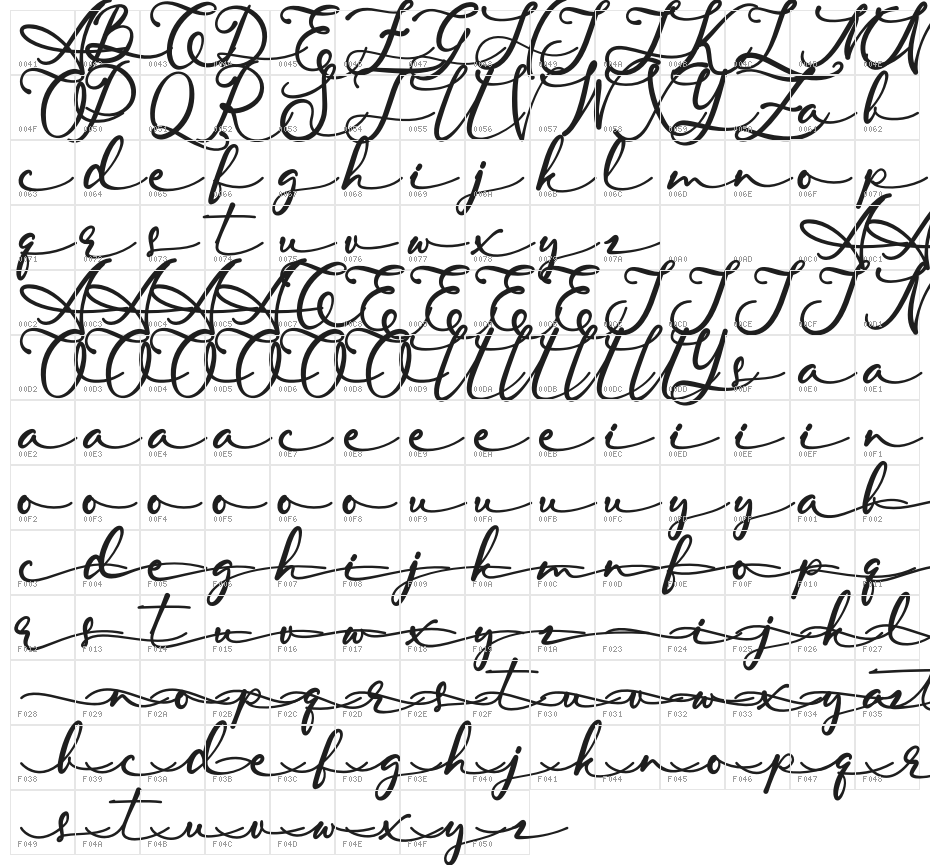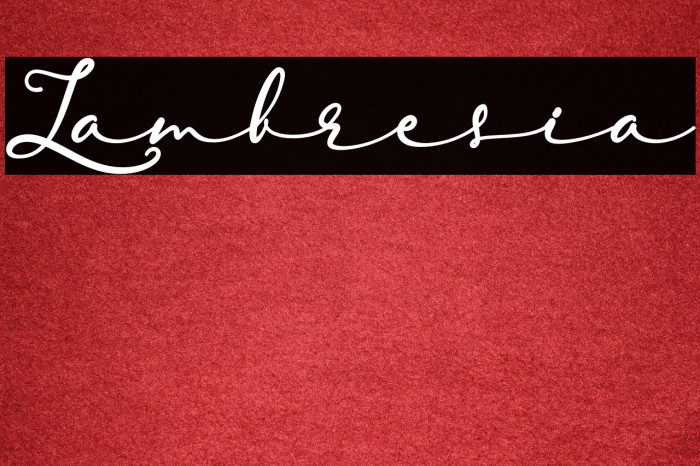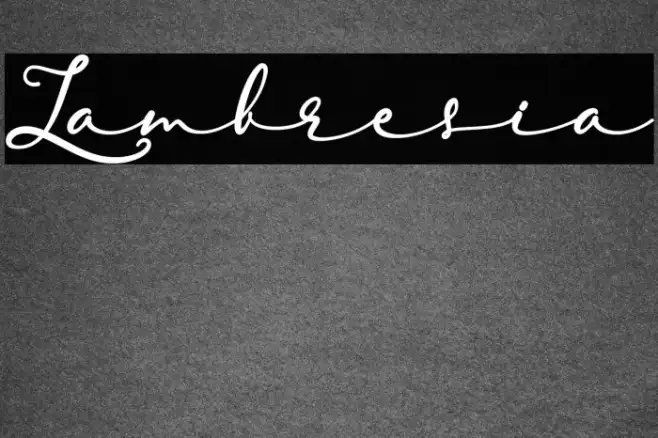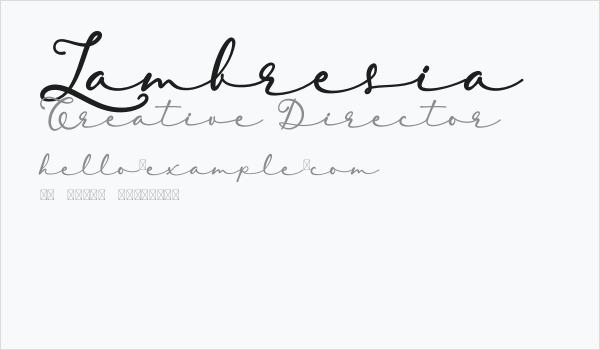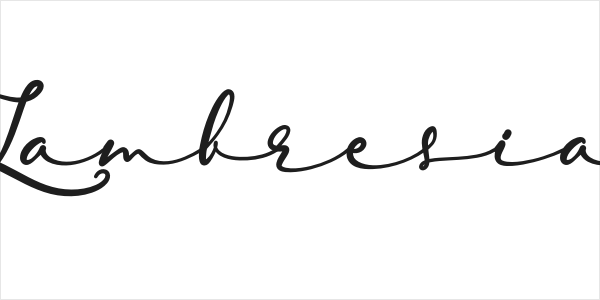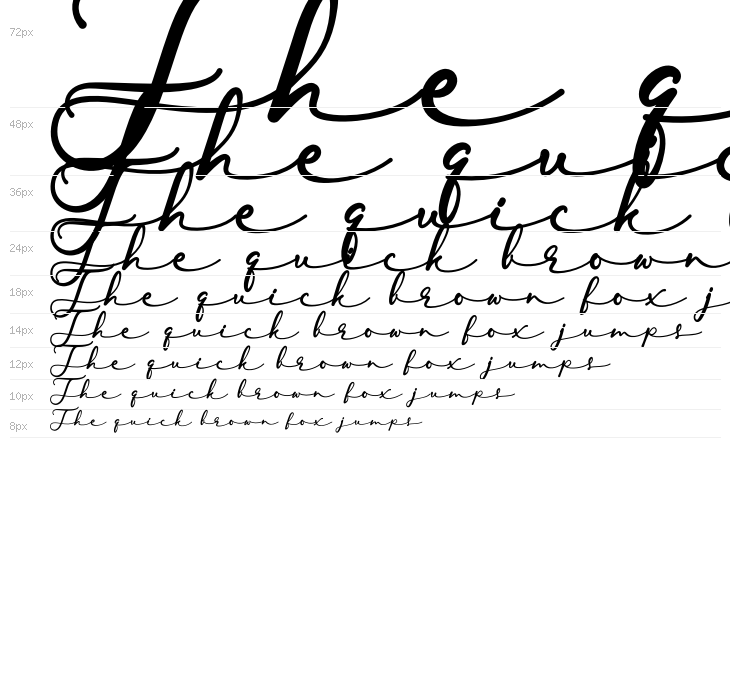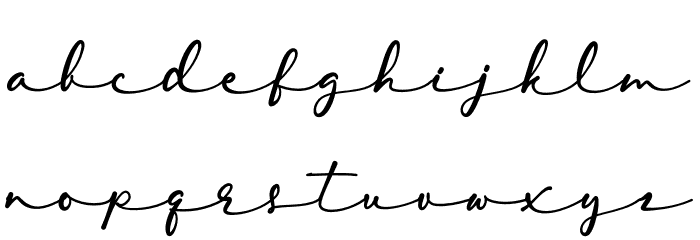
Lambresia Font
Lambresia Description
This font features an elegant and flowing script style, characterized by its smooth, cursive letterforms. The uppercase letters exhibit a graceful, interconnected design, while the lowercase letters maintain a consistent fluidity, enhancing readability. The strokes are moderately thick, providing a balanced contrast that adds to the font's sophistication. The absence of special characters suggests a focus on alphabetic expression, making it ideal for decorative purposes. The overall appearance is both classic and modern, suitable for a variety of creative applications.